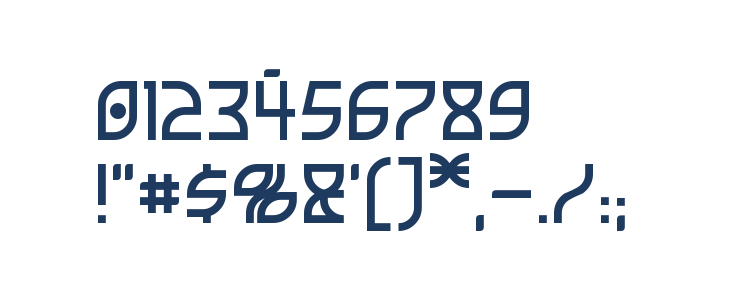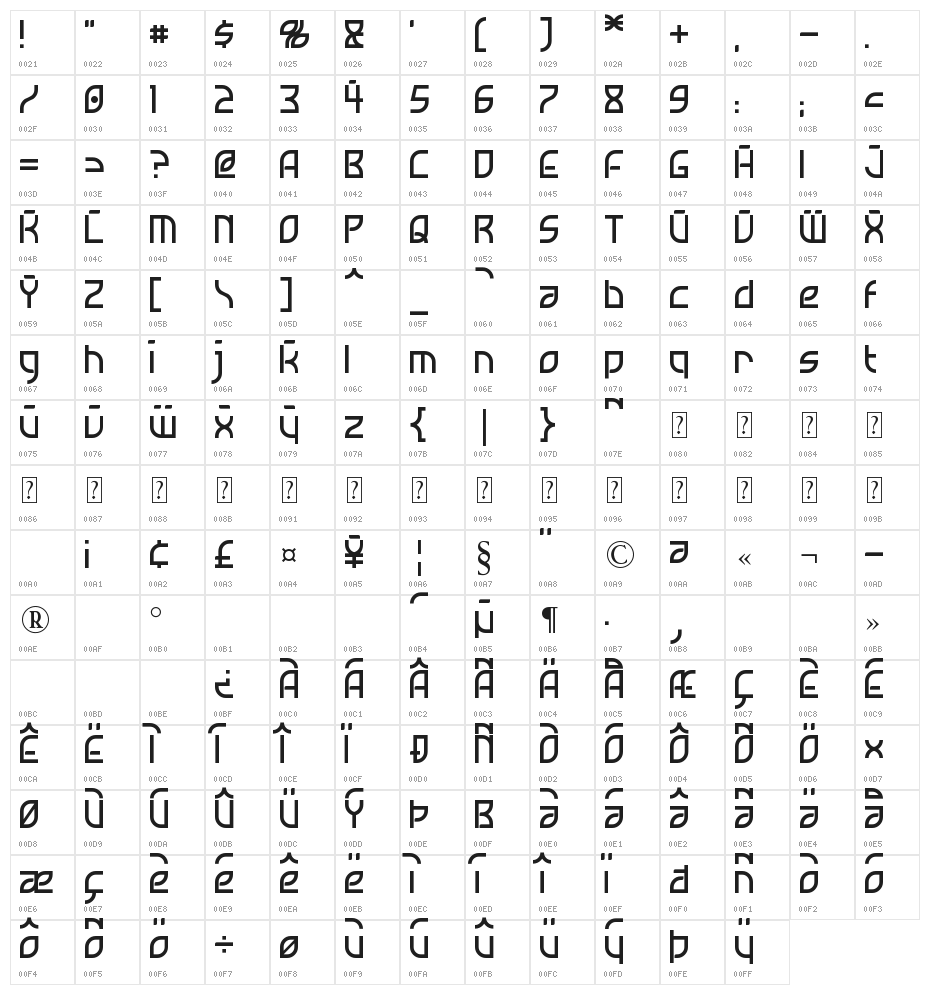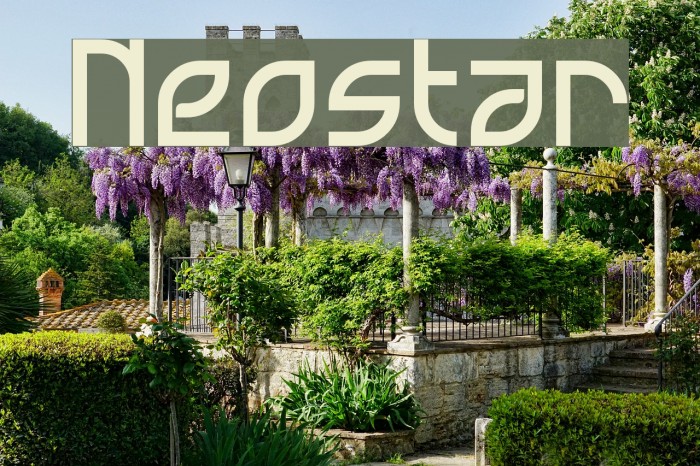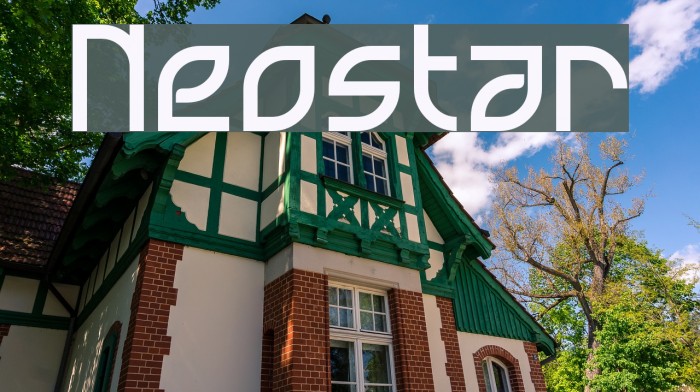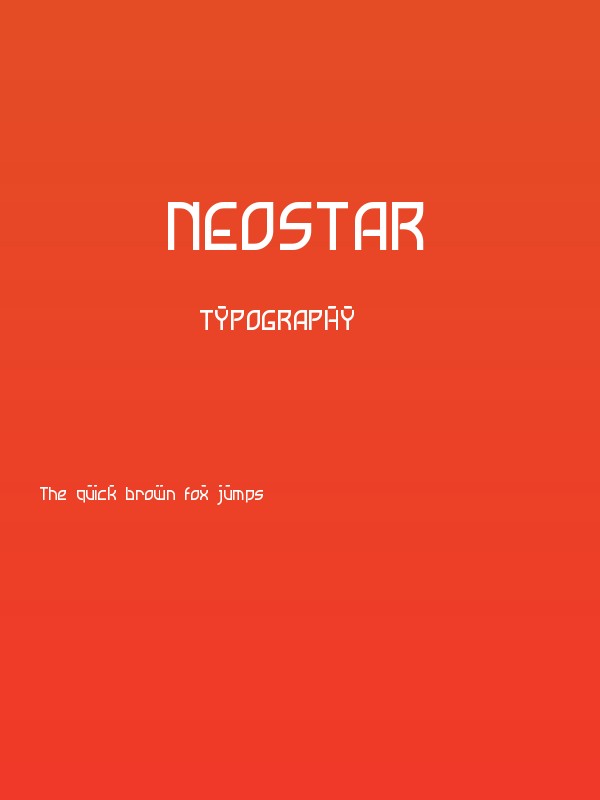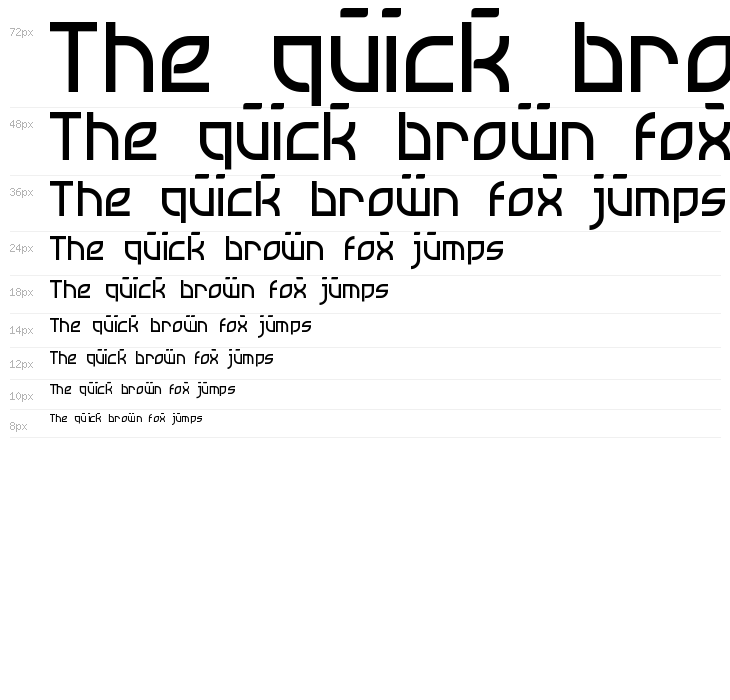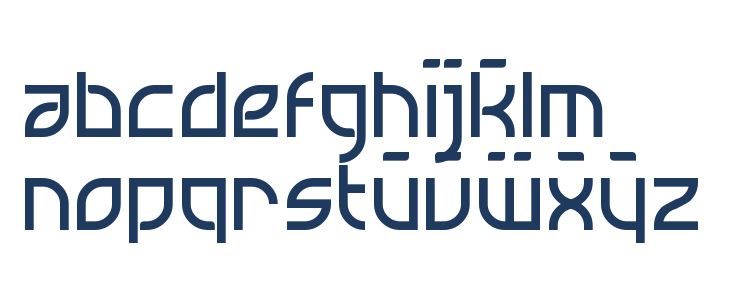
Neostar Font
Neostar Description
This font features a futuristic and geometric design, characterized by its clean lines and unique angular shapes. The uppercase letters are bold and structured, with a distinct modern flair that is both eye-catching and versatile. The lowercase letters maintain the geometric theme, offering a cohesive look across different text sizes. Numbers are crafted with the same attention to detail, ensuring readability while maintaining the font's overall aesthetic. Special characters are thoughtfully designed to complement the letterforms, making this font suitable for a variety of creative applications.
| Proposed Projects | Ideal for technology branding, sci-fi themed designs, modern posters, and innovative product packaging. |